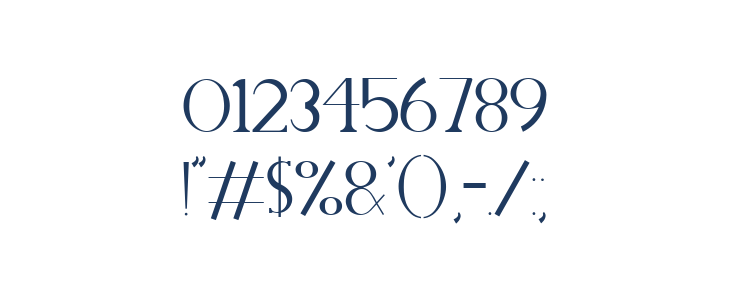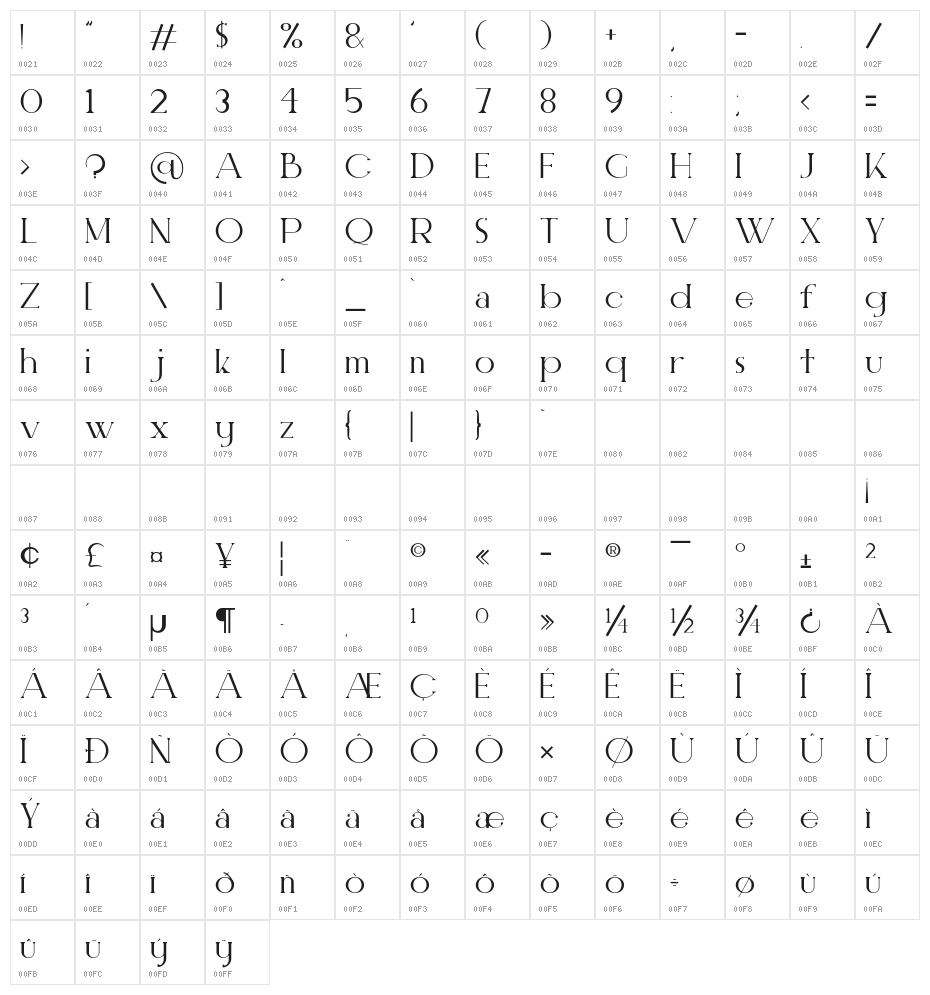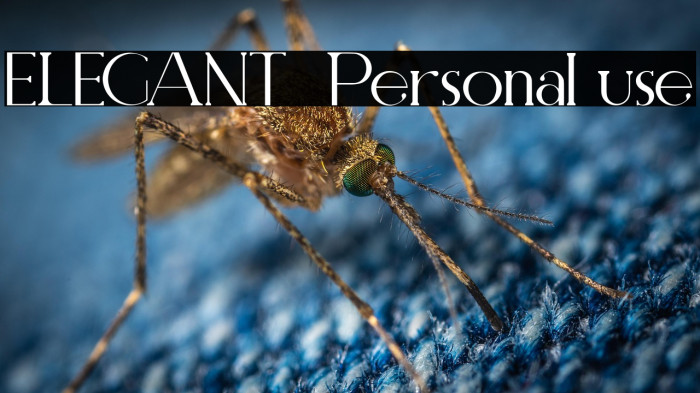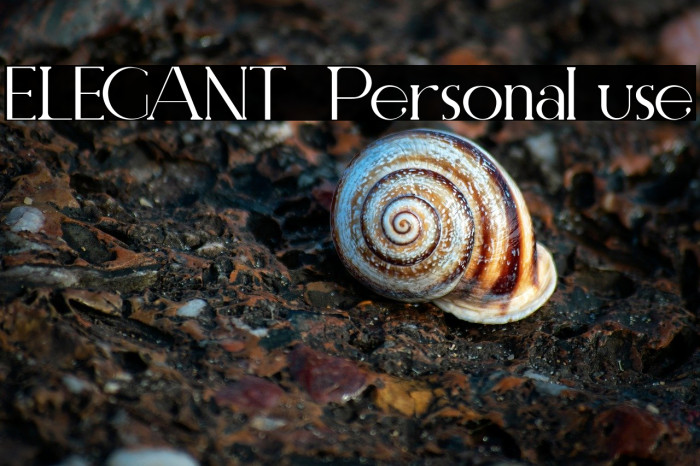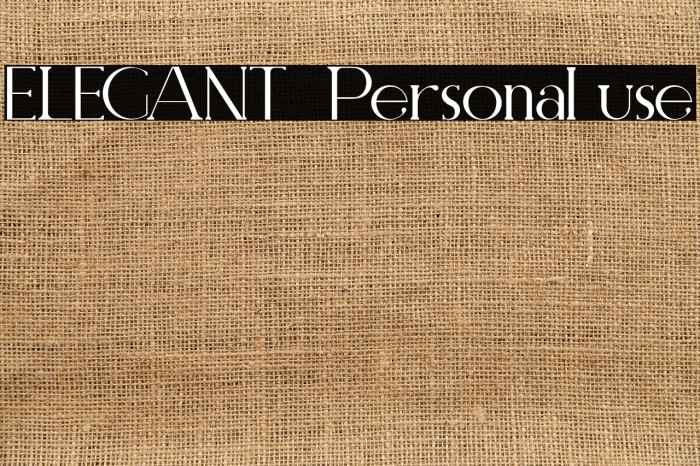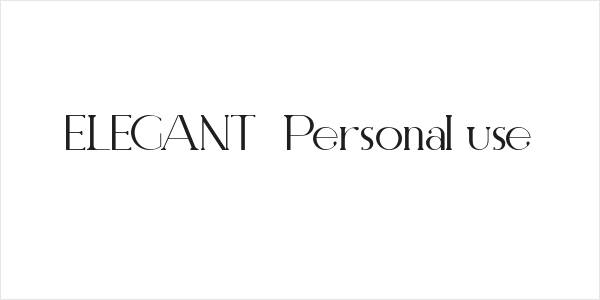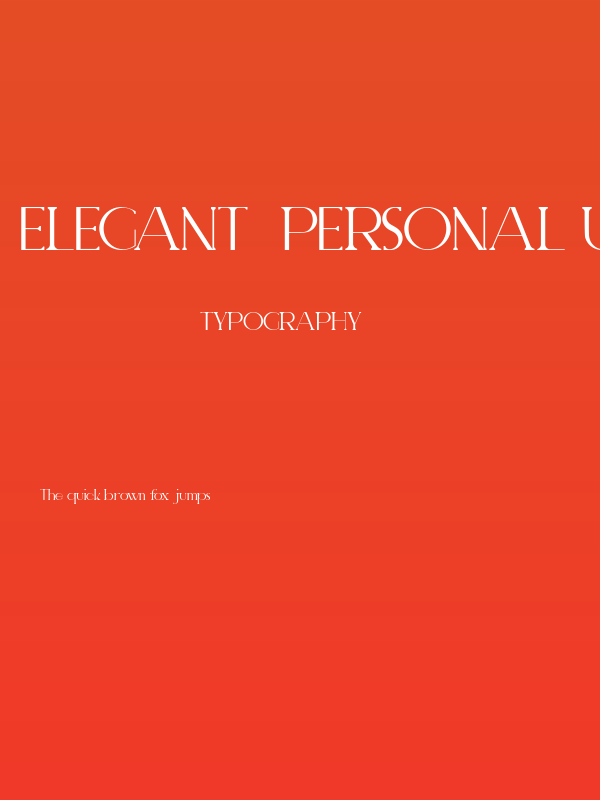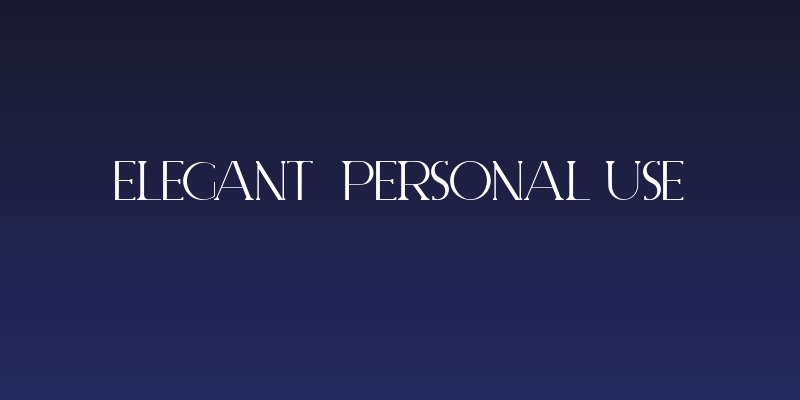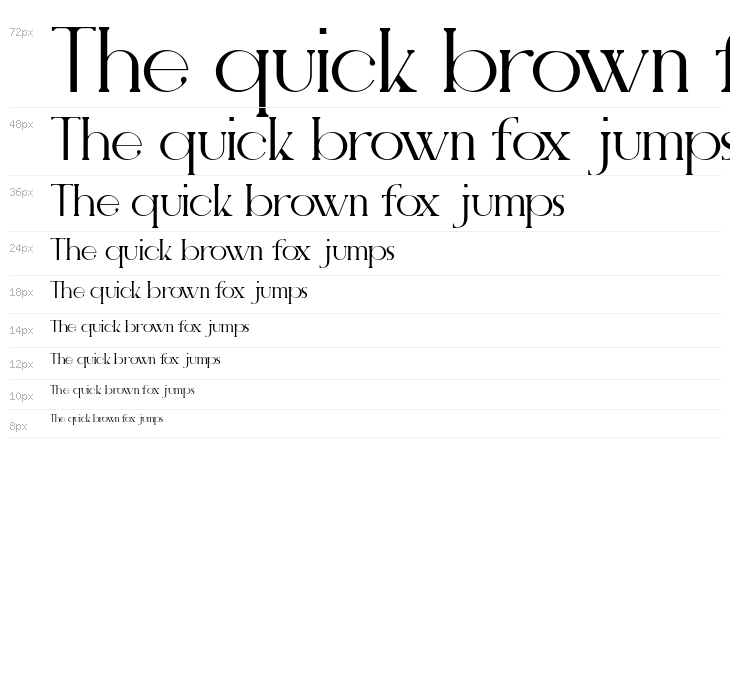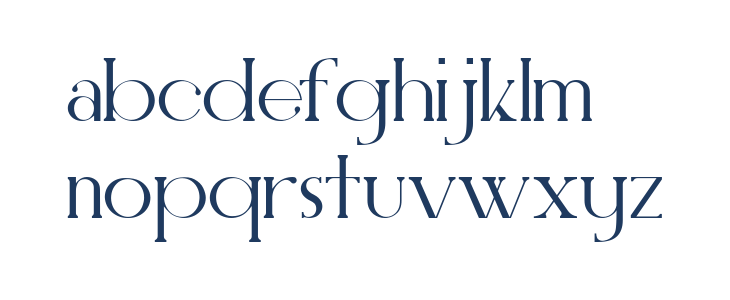
ELEGANT Personal use Font
ELEGANT Personal use Description
This font exudes a sense of elegance and sophistication with its high contrast between thick and thin strokes. The uppercase letters are tall and slender, giving a refined and graceful appearance, while the lowercase letters maintain a consistent style with subtle curves and delicate serifs. The numerals are distinct and clear, ensuring readability. Special characters are designed with the same attention to detail, making them blend seamlessly with the rest of the typeface. The overall design is both modern and timeless, suitable for a variety of high-end applications.
| Proposed Projects | Ideal for luxury branding, wedding invitations, high-end product packaging, and editorial design. |